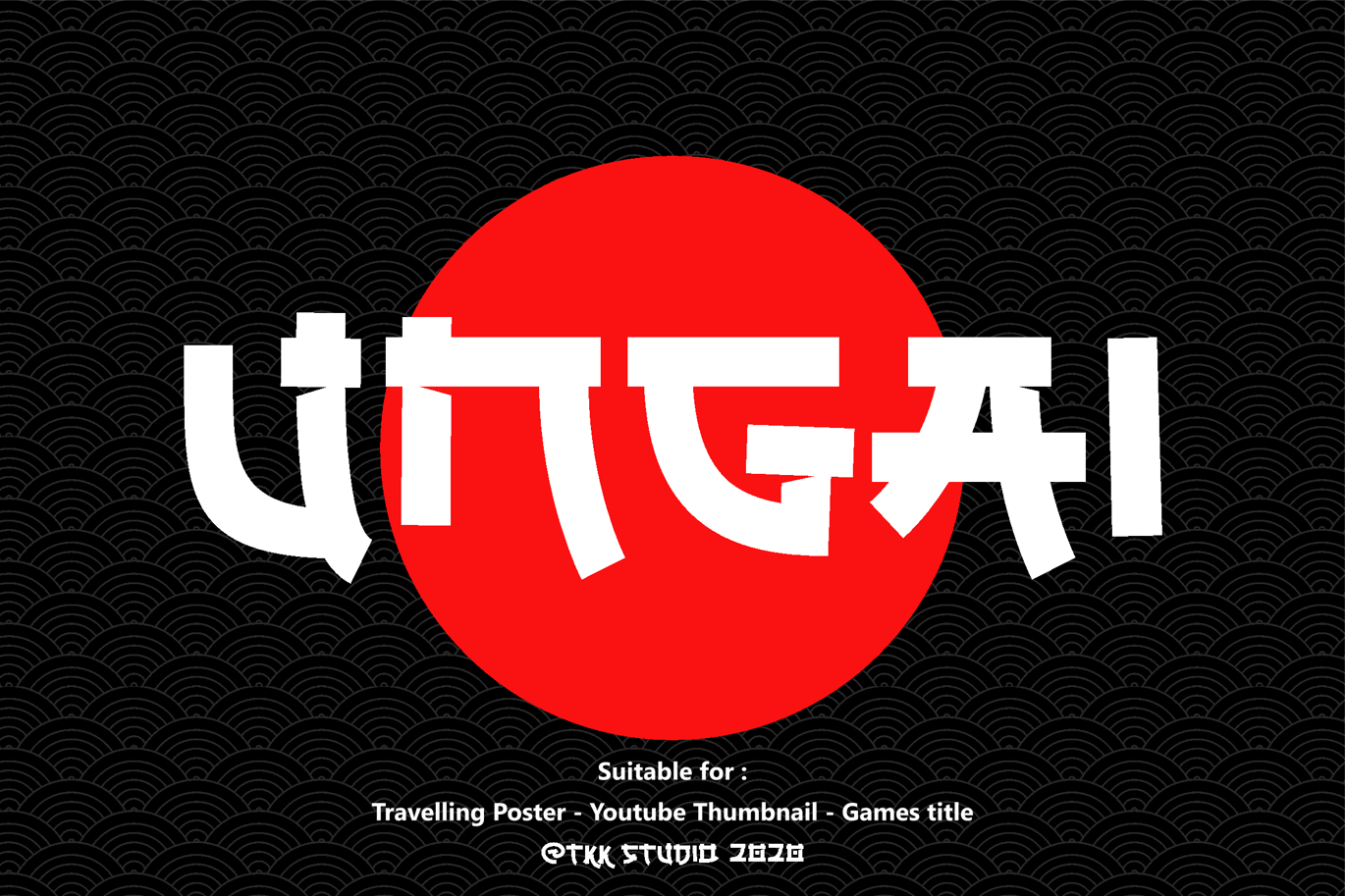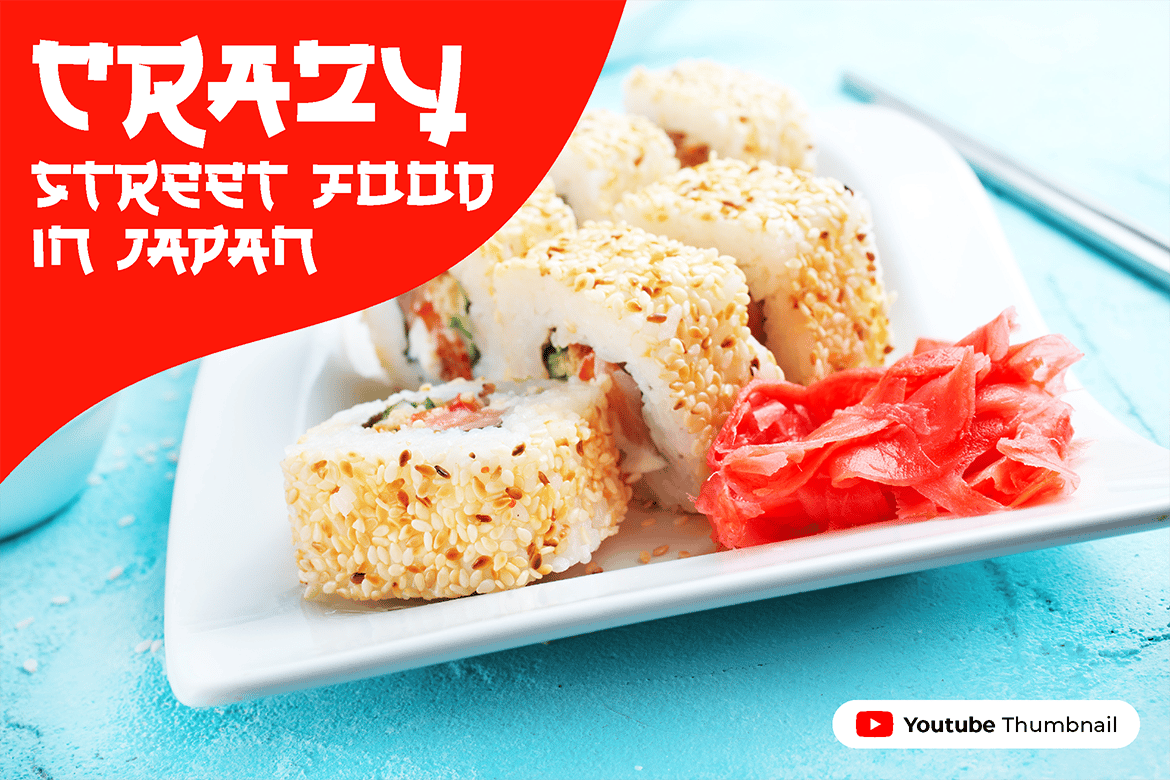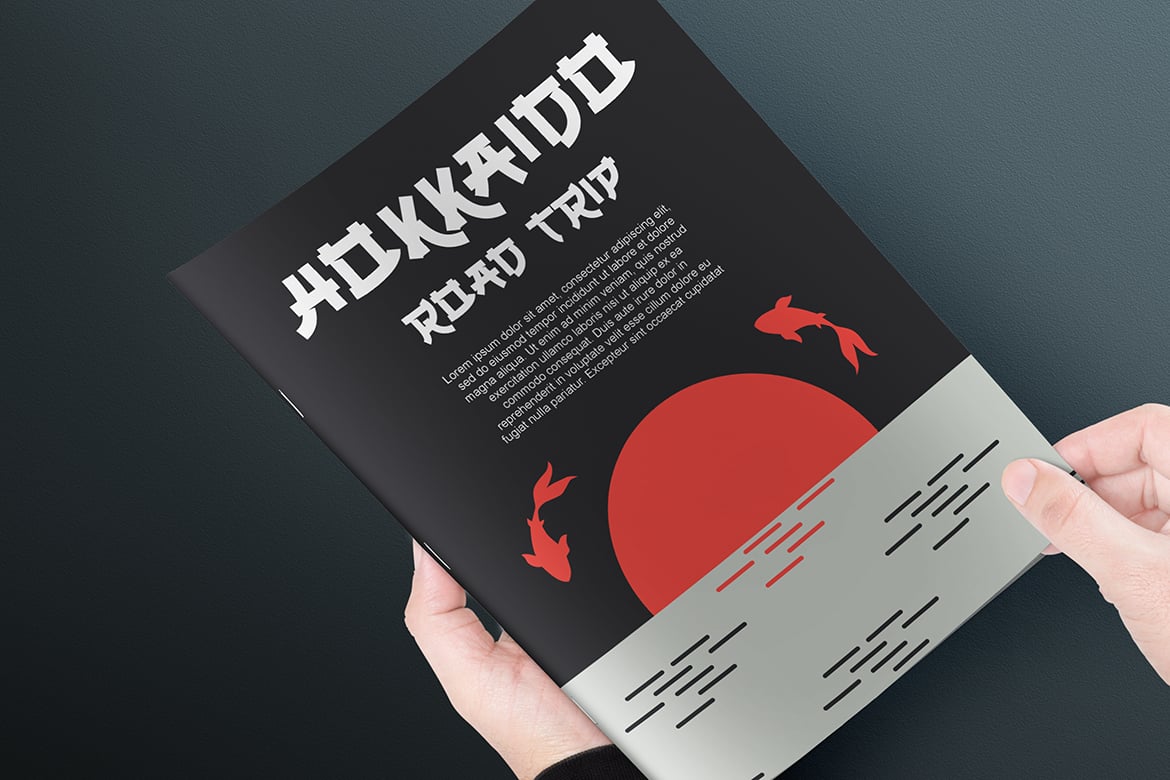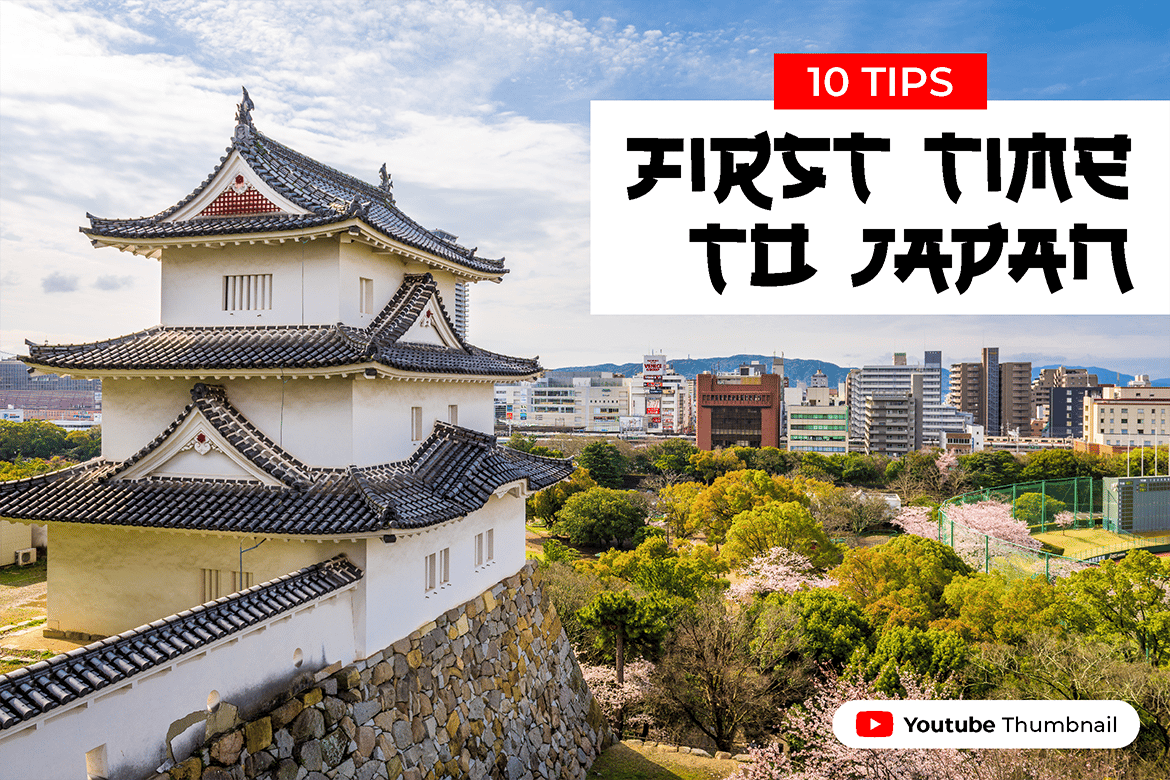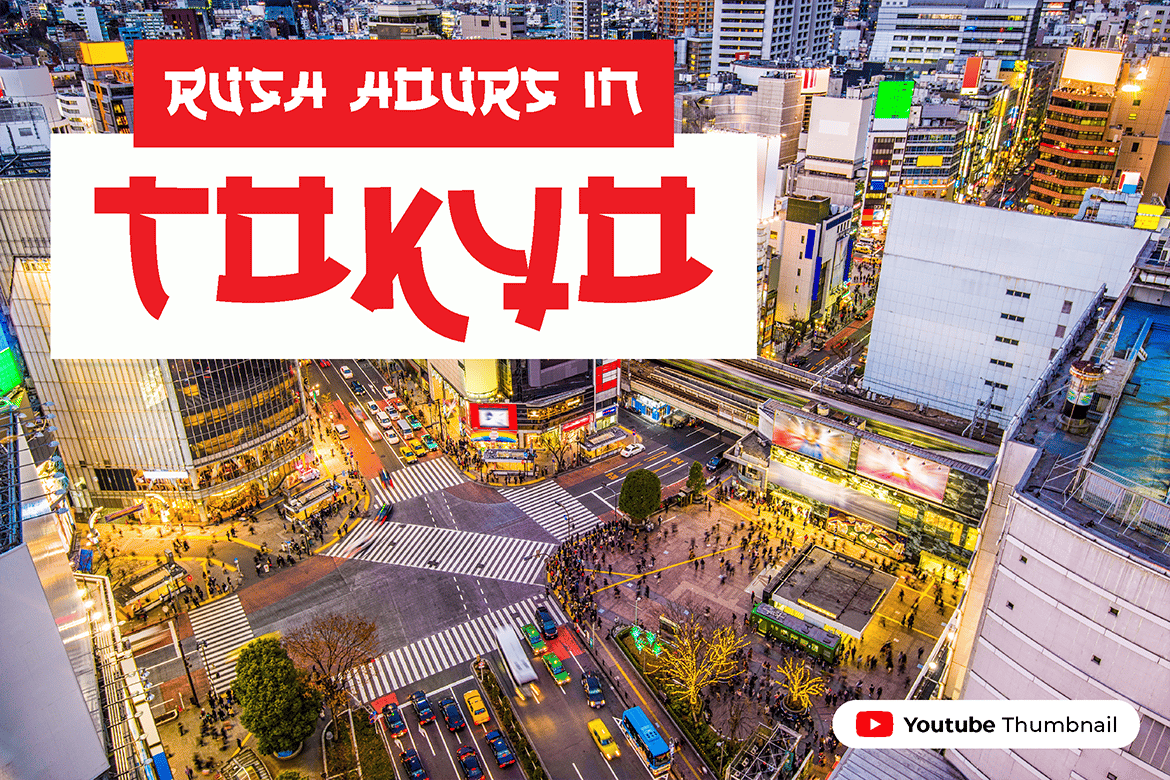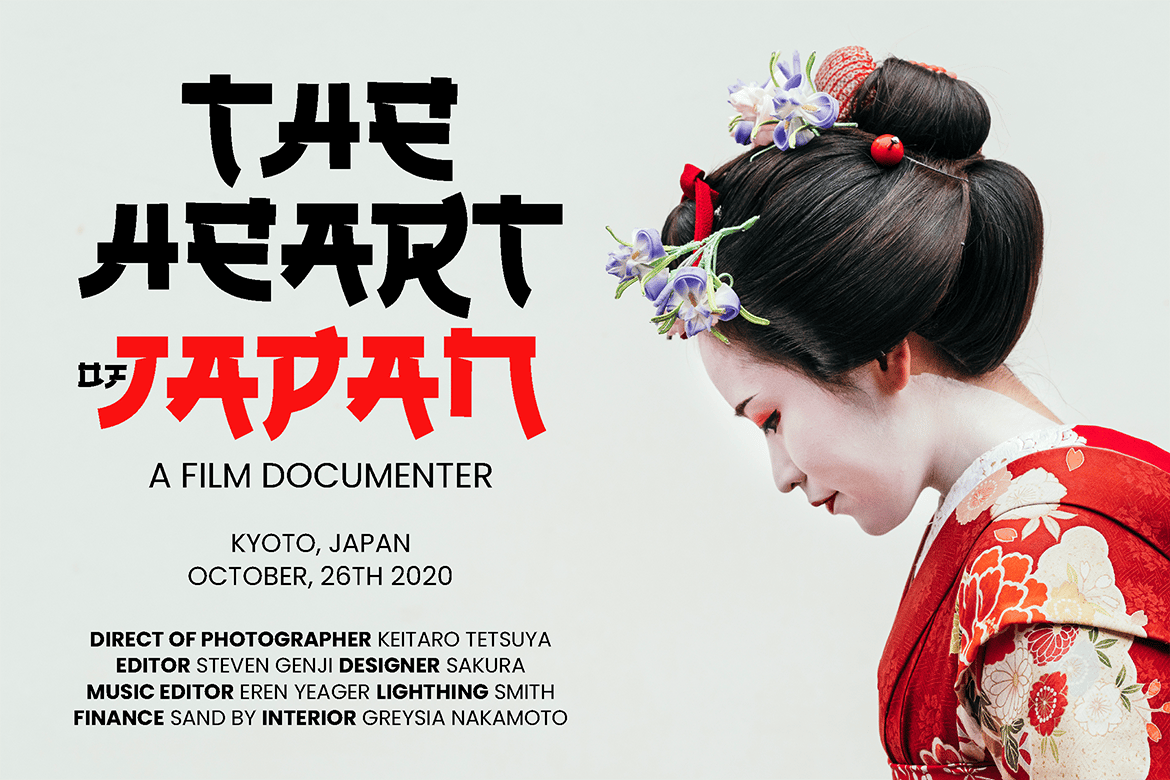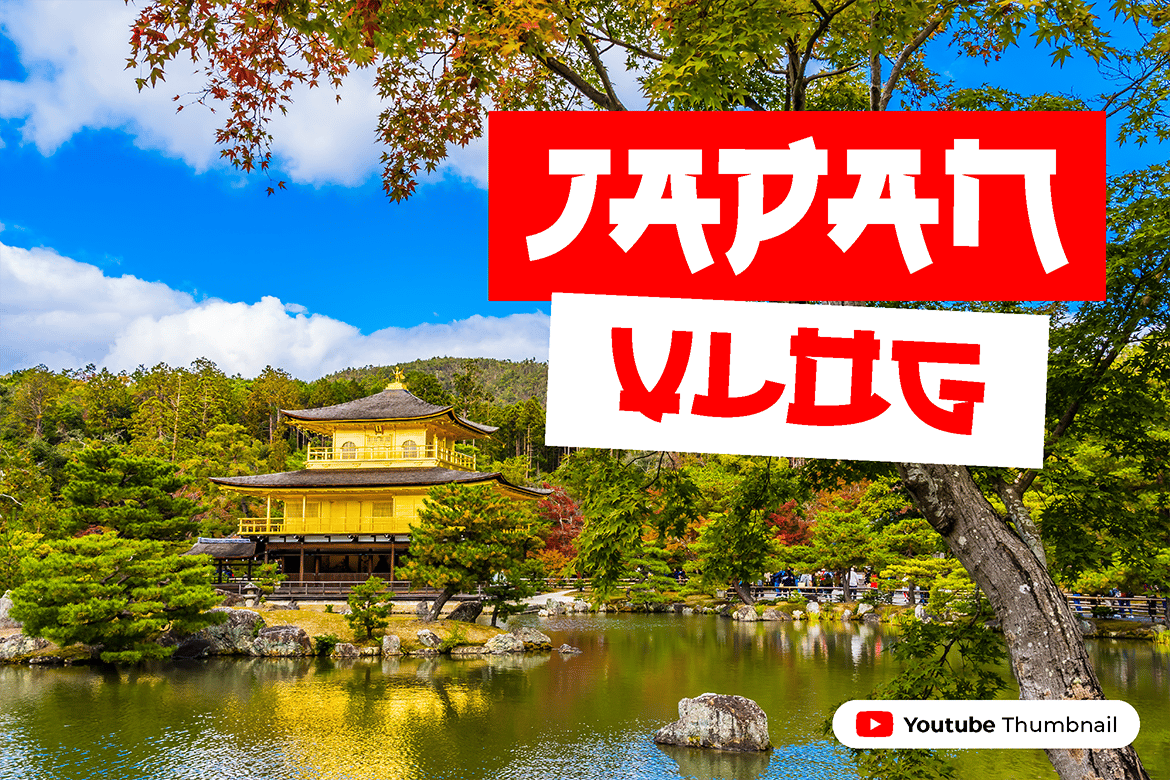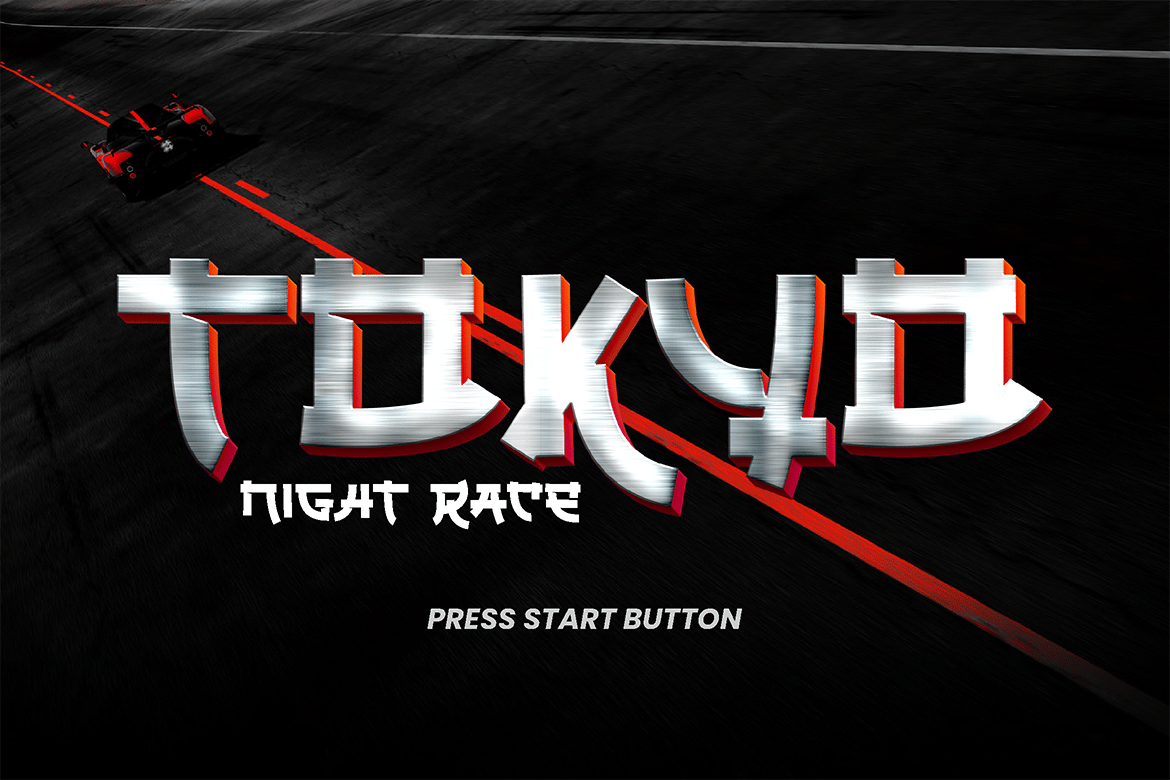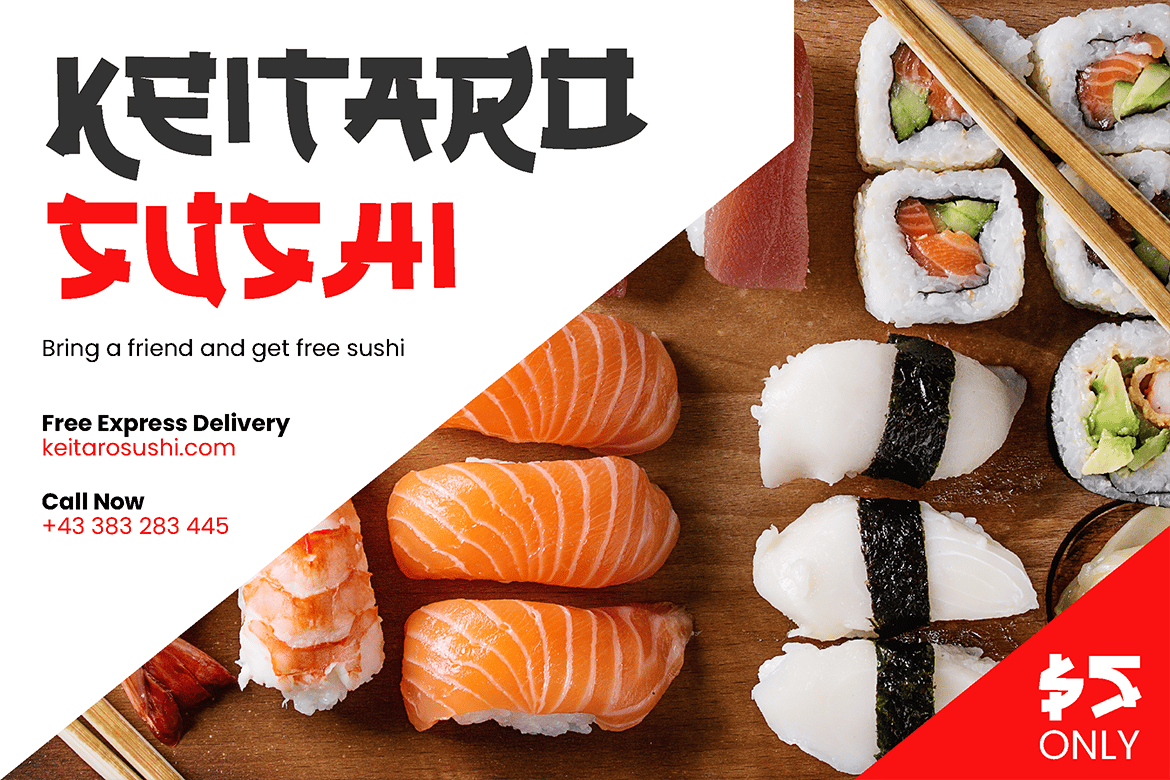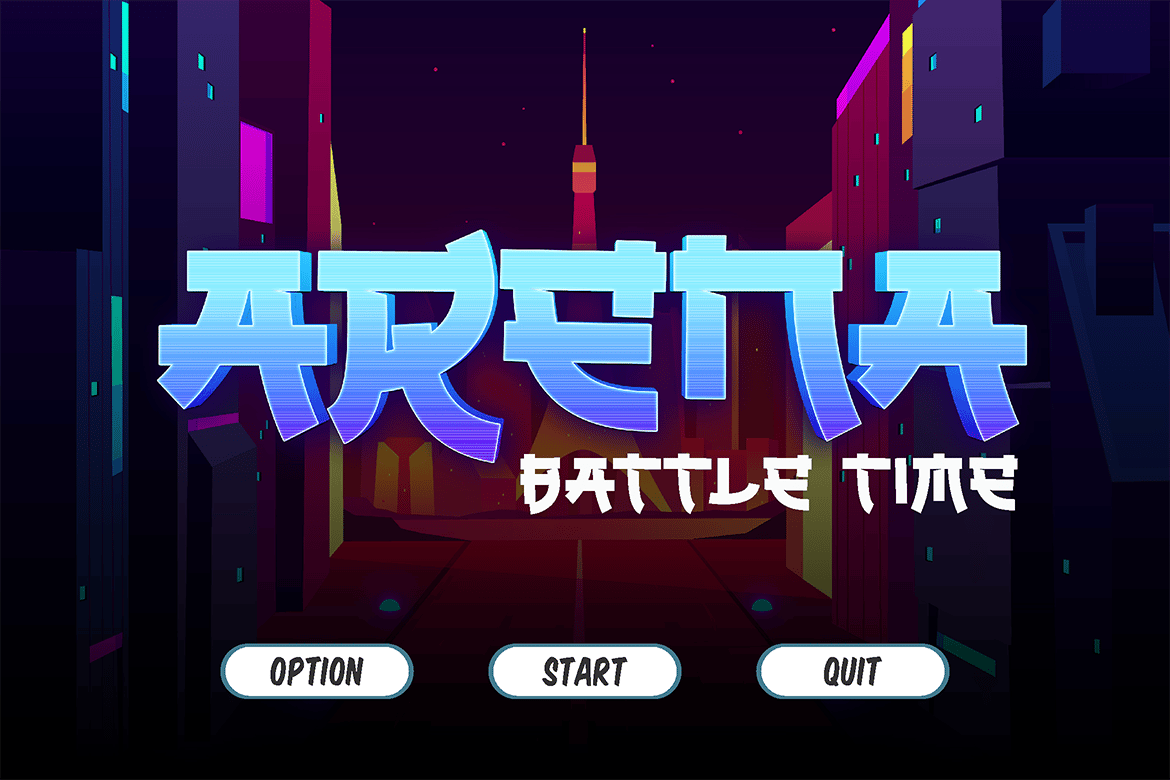
Faux Japanese Asian Font – Ungai
UNGAI – A Bold Tribute to Japanese Aesthetics
UNGAI is a striking display font inspired by the bold strokes and geometric balance of Japanese culture. With its sharp angles, structured forms, and modernized brushstroke influence, this font embodies the energy of Tokyo’s bustling streets, the tradition of Japanese calligraphy, and the vibrance of contemporary design.
Designed for branding, travel content, food packaging, and cultural storytelling, UNGAI blends authenticity with modern minimalism, making it perfect for Japanese-themed posters, restaurant menus, travel guides, and social media visuals. Whether you’re crafting a street food logo or an urban Japan-inspired campaign, UNGAI ensures your message stands out with bold precision and cultural depth.
Why Choose UNGAI?
- Japanese-Inspired Aesthetic – A fusion of modern design and traditional calligraphy.
- Bold & Geometric – Sharp, impactful letterforms for a strong visual identity.
- Perfect for Travel & Cultural Branding – Ideal for tourism, restaurant logos, and Japanese themes.
- Versatile Across Digital & Print – Works beautifully in packaging, social media, and signage.
- Striking & Readable – Designed for high-impact headlines and engaging visuals.
UNGAI brings the spirit of Japan into every design—bold, structured, and unforgettable.